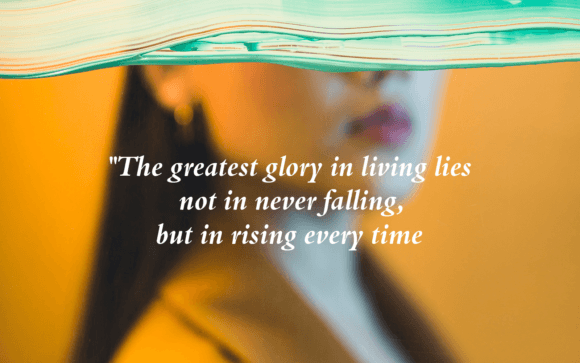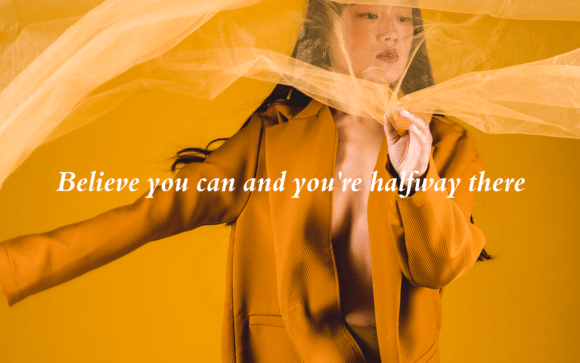
Introduction to Metro Serif Font
Have you ever found yourself scrolling through a beautifully designed website or magazine, and suddenly, a particular font catches your eye? For many designers, that ‘aha’ moment is what drives them to create something truly special. For me, it was when I stumbled upon the Metro Serif Font – a game-changer in the world of typography.
As a designer, you understand the importance of selecting the right font for your project. With Metro Serif Font, you’ll find a perfect balance between elegance and modern precision, making it an ideal choice for both digital and print designs. Its clean lines and balanced letterforms give it a timeless quality that conveys clarity and professionalism, while its classical inspiration blended with contemporary flair adds a touch of sophistication to any text.
Key Features of Metro Serif Font
- High-quality design suitable for creative projects, including logos, posters, and brochures.
- Includes a transparent background, making it easy to customize and adjust to any design resource.
- Available in multiple font sizes, from 12pt to 72pt, allowing designers to customize the font to suit their specific needs.
- Features a high-resolution design, suitable for both print and digital applications, ensuring crisp and clear text display.
- Designed to be versatile and easy to use, making it an excellent addition to any designer’s font library.
Honest Review: Metro Serif Font
I recently had the chance to work with the Metro Serif Font, and I must say it’s a solid addition to any designer’s toolkit. This high-quality font is perfect for creative projects where a sleek, modern look is needed. The transparent background makes it easy to work with, and the free download option is a definite bonus.
Here are some things that work well with the Metro Serif Font:
- Wide range of applications: From logos to typography, this font is versatile and can be used in various design contexts.
- Easy to read: The clean design and high-quality rendering make it easy on the eyes, even at smaller font sizes.
- Limited character set: The font may not include all the characters you need for certain languages or special characters.
- Not suitable for very large or complex designs: While the font is great for smaller designs, it may struggle to maintain its quality at larger sizes.
Overall, I’m impressed with the Metro Serif Font. It’s a great resource for designers who want a high-quality, modern font without breaking the bank. Just be aware of its limitations, and you’ll be all set for your next creative project.
Metro Serif Font
The Metro Serif Font is a high-quality design resource ideal for creative projects that require a professional touch. This versatile font is available for free download and can be used in various design applications.
Tips for Getting the Most Out of Metro Serif Font
To get the most out of the Metro Serif Font, use it in conjunction with a transparent background to create a clean and modern design. Experiment with different font sizes and styles to add depth and visual interest to your designs.
The Metro Serif Font is commonly used in creative projects such as: logos, business cards, brochures, and marketing materials. It’s also ideal for creating headings and titles in presentations, documents, and websites.
Yes, Metro Serif Font supports transparent backgrounds, making it suitable for use in designs that require a high level of customization and flexibility. This feature is particularly useful for creating designs with complex layering and compositing.